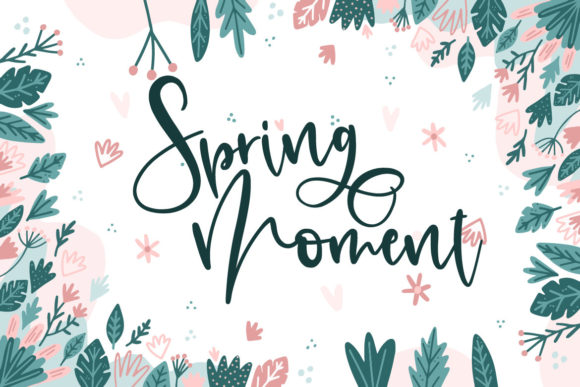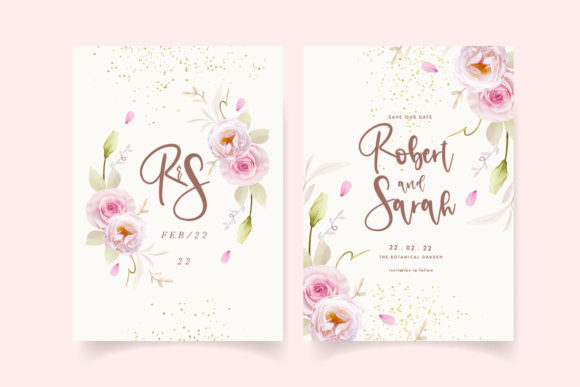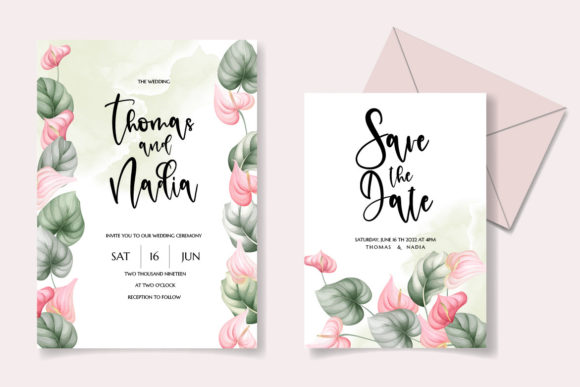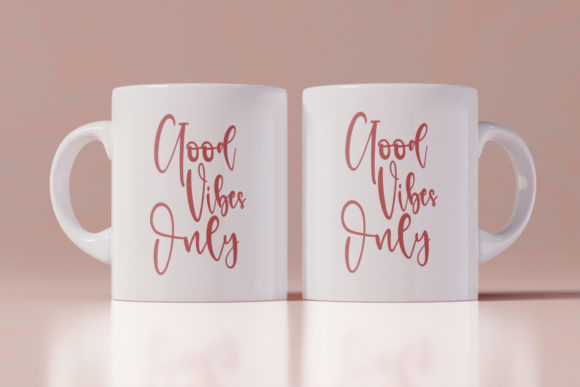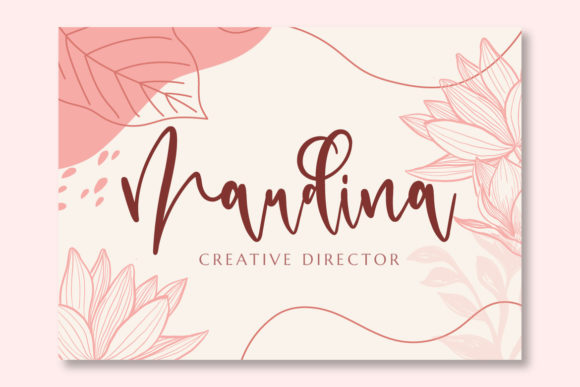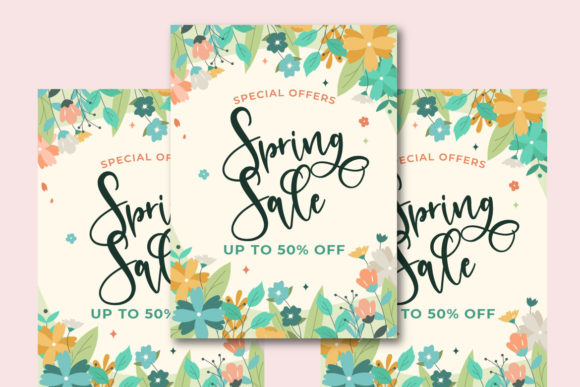
Discover the Elegance of Florida Font: A Delicate Handwritten Script
Are you a designer or crafter looking for a font that exudes elegance and sophistication? Look no further than the Florida Font, a delicate, elegant, and flowing handwritten script that is sure to elevate your designs to the next level. In this article, we’ll dive into the world of Florida Font, exploring its features, benefits, and uses, as well as provide tips and inspiration for incorporating it into your creative projects.
What is Florida Font?
Florida Font is a beautiful, handwritten script font that is characterized by its delicate and elegant strokes. With its well-balanced characters and flowing curves, this font is perfect for a wide range of design applications, from wedding invitations and branding materials to packaging and digital media. Whether you’re looking to create a romantic and whimsical feel or a sophisticated and luxurious look, Florida Font is the perfect choice.
Key Features of Florida Font
- Delicate and Elegant Strokes: Florida Font features beautiful, flowing strokes that give it a delicate and elegant feel.
- Well-Balanced Characters: Each character in Florida Font is carefully crafted to ensure that the font is well-balanced and visually appealing.
- Versatile: Florida Font can be used for a wide range of design applications, from print to digital media.
- Easy to Read: Despite its delicate nature, Florida Font is easy to read, making it perfect for body text and headlines.
Benefits of Using Florida Font
So, why should you choose Florida Font for your next design project? Here are just a few benefits of using this beautiful font:
- Adds Elegance and Sophistication: Florida Font adds a touch of elegance and sophistication to any design, making it perfect for high-end brands and luxury products.
- Creates a Unique Look: With its delicate strokes and flowing curves, Florida Font helps to create a unique and distinctive look that sets your design apart from the crowd.
- Versatile: Florida Font can be used for a wide range of design applications, from print to digital media, making it a great addition to any designer’s font library.
Tips for Using Florida Font
Here are a few tips for using Florida Font in your design projects:
- Pair with Bold Fonts: Florida Font pairs perfectly with bold fonts, creating a beautiful contrast that adds visual interest to your design.
- Use for Headlines and Body Text: Florida Font is easy to read, making it perfect for both headlines and body text.
- Experiment with Colors: Florida Font looks great in a range of colors, from soft pastels to rich jewel tones.
Inspiration for Using Florida Font
Still not sure how to use Florida Font in your design projects? Here are a few ideas to get you started:
- Wedding Invitations: Florida Font is perfect for wedding invitations, adding a touch of elegance and sophistication to your wedding stationery.
- Branding Materials: Use Florida Font to create beautiful branding materials, such as business cards, letterheads, and packaging.
- Digital Media: Florida Font can be used for digital media, such as social media graphics, blog posts, and website headers.
In conclusion, Florida Font is a beautiful, delicate, and elegant handwritten script font that is perfect for designers and crafters looking to add a touch of sophistication to their designs. With its well-balanced characters, flowing curves, and versatile nature, Florida Font is sure to become a favorite in your font library. So why not give it a try and see the endless variations you can create with this beautiful font?